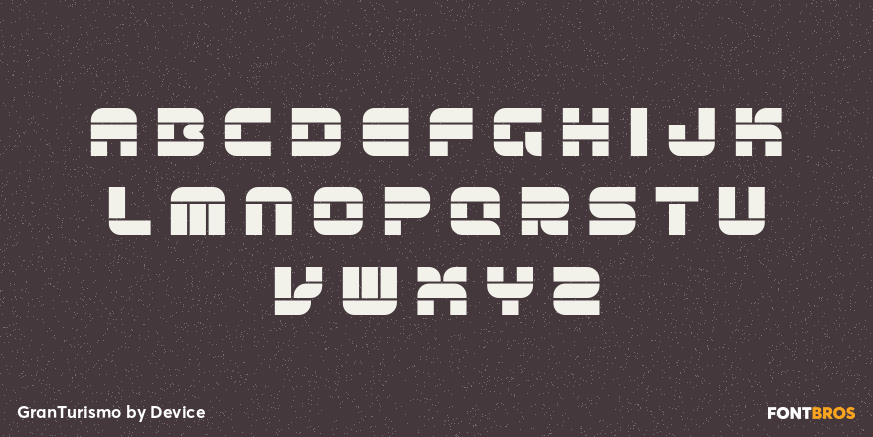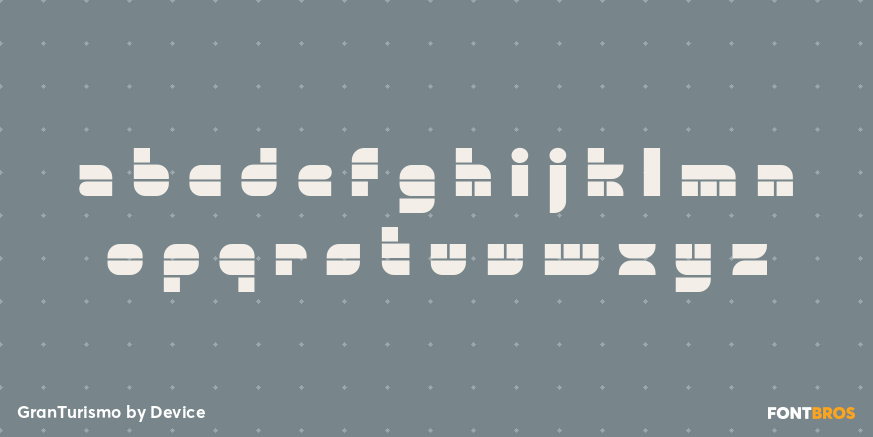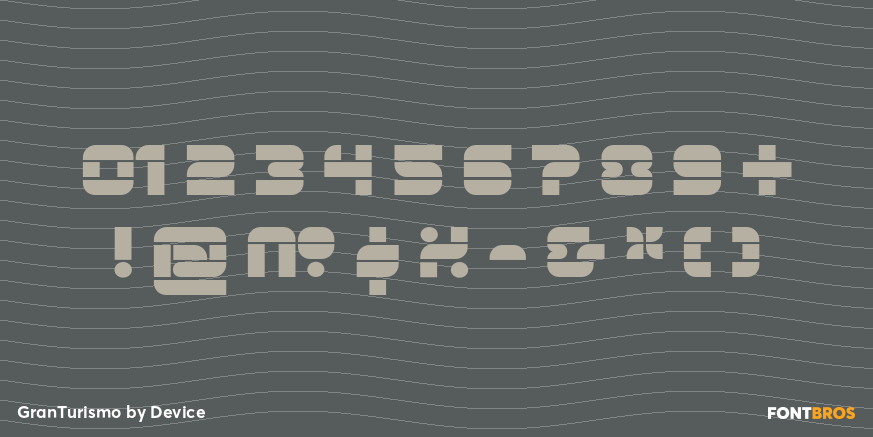
GranTurismo
Font Family by Device
GranTurismo is a six-style sans serif display family with a distinctly retro attitude, pulling from groovy late-’60s and ’70s cues as well as an ’80s new wave edge. Its stylized shapes give it a bold, expressive presence that feels graphic, rhythmic, and made to stand out.
The family includes Regular, Italic, Extended, Extended Italic, Outline, and Shaded styles, giving you a flexible set of looks for layered headlines, poster-sized type, and statement branding. Those alternate treatments make it especially appealing for packaging, apparel, music-inspired graphics, and other decorative display work.
Created by Device, this collection is a strong fit when you want vintage energy without losing a clean sans serif foundation. Use it anywhere the typography needs personality, motion, and a little bit of throwback flair.